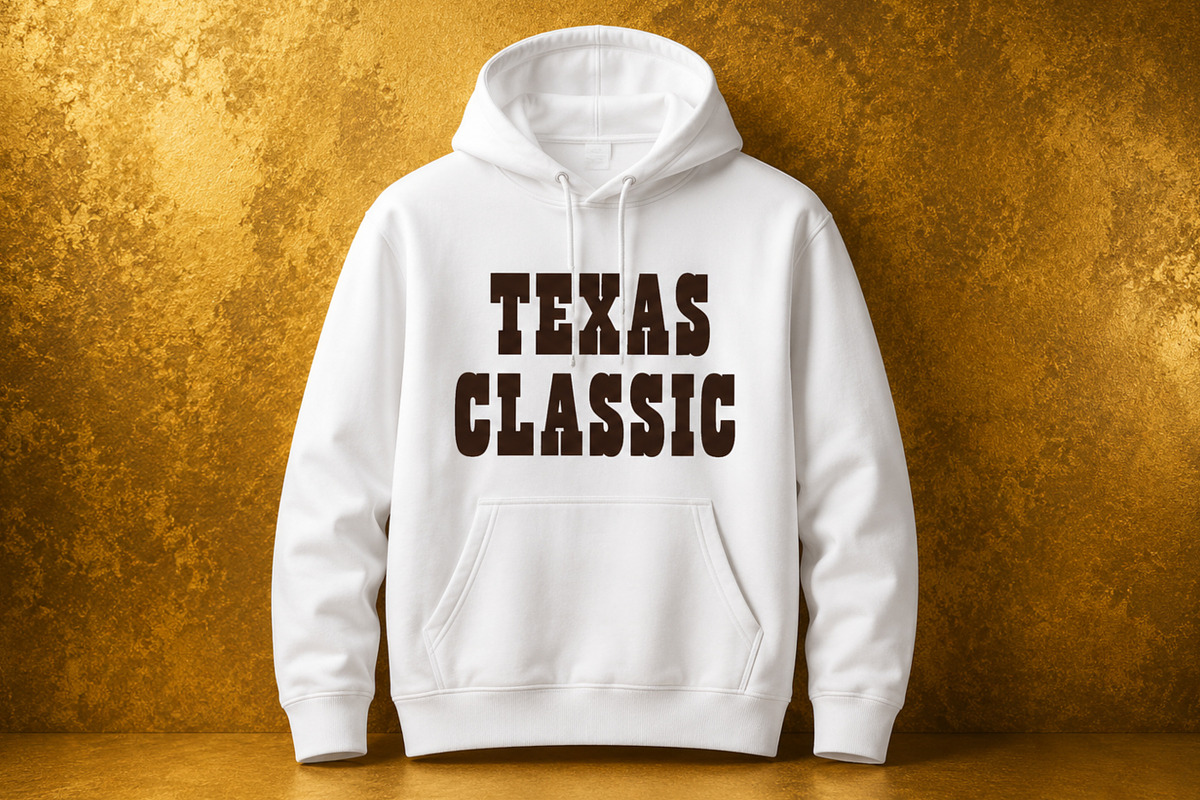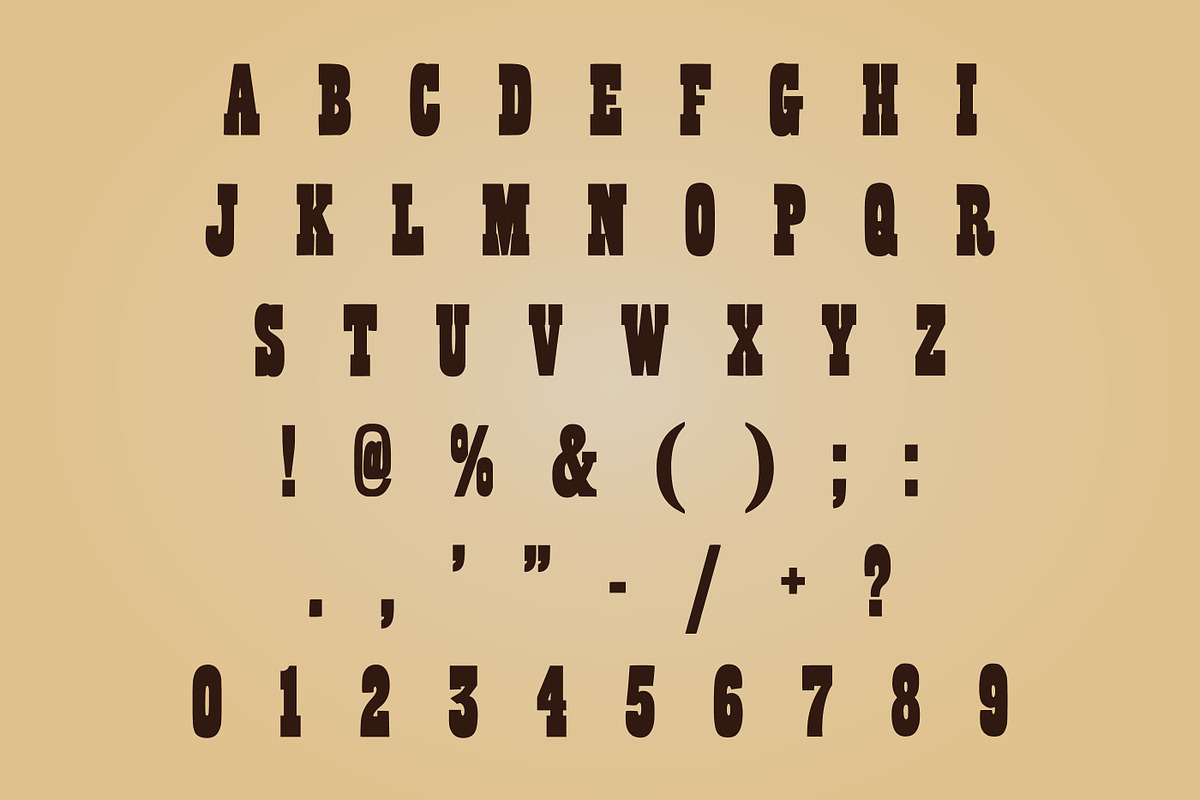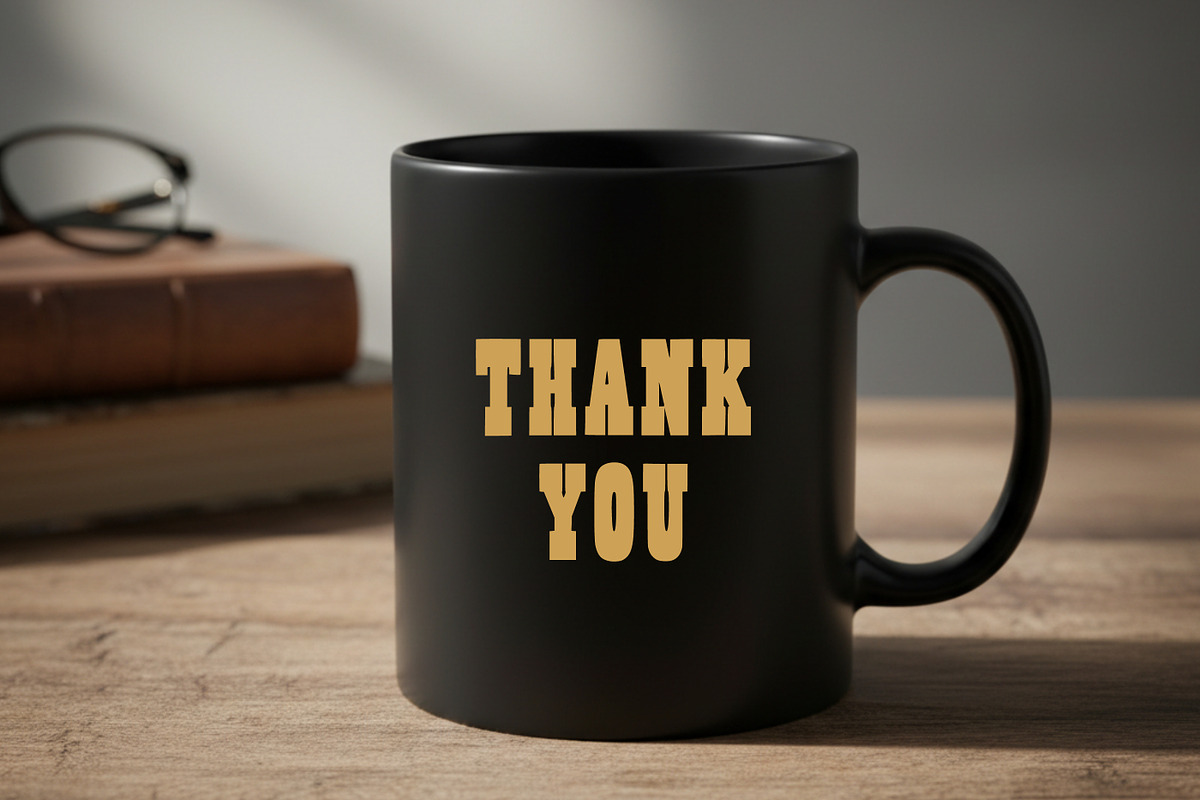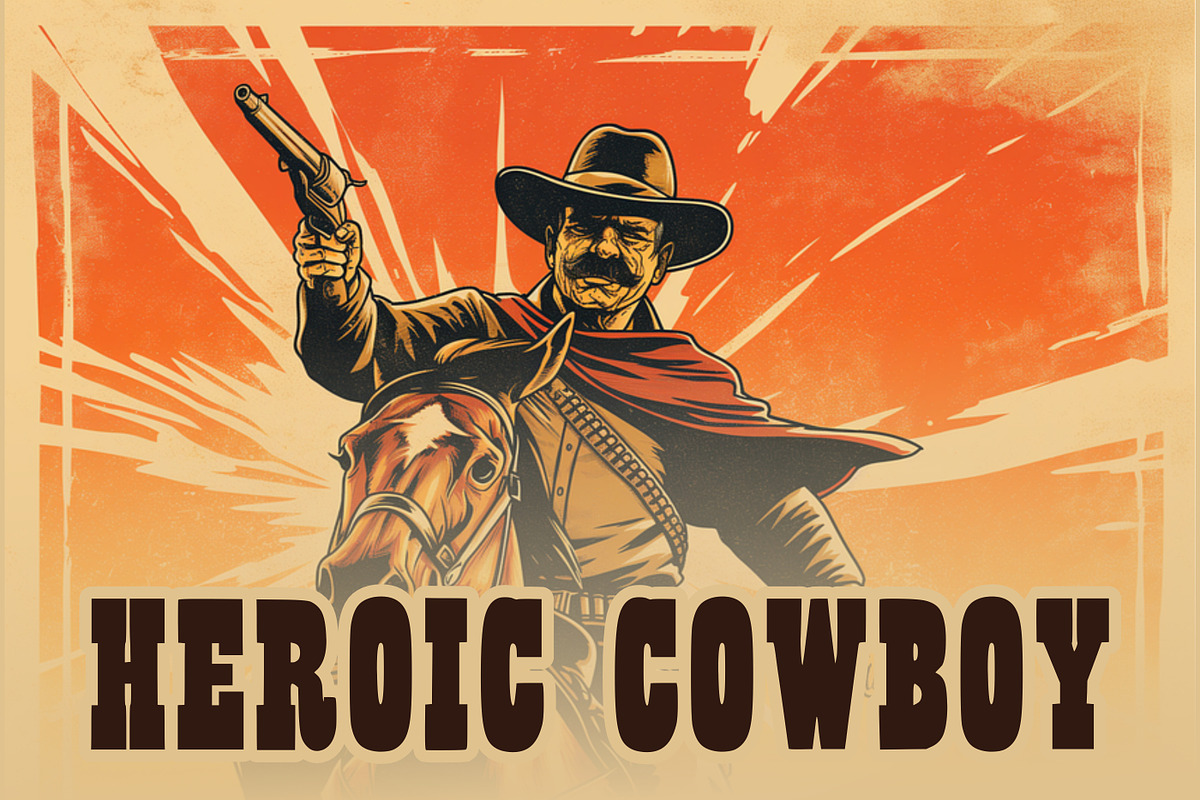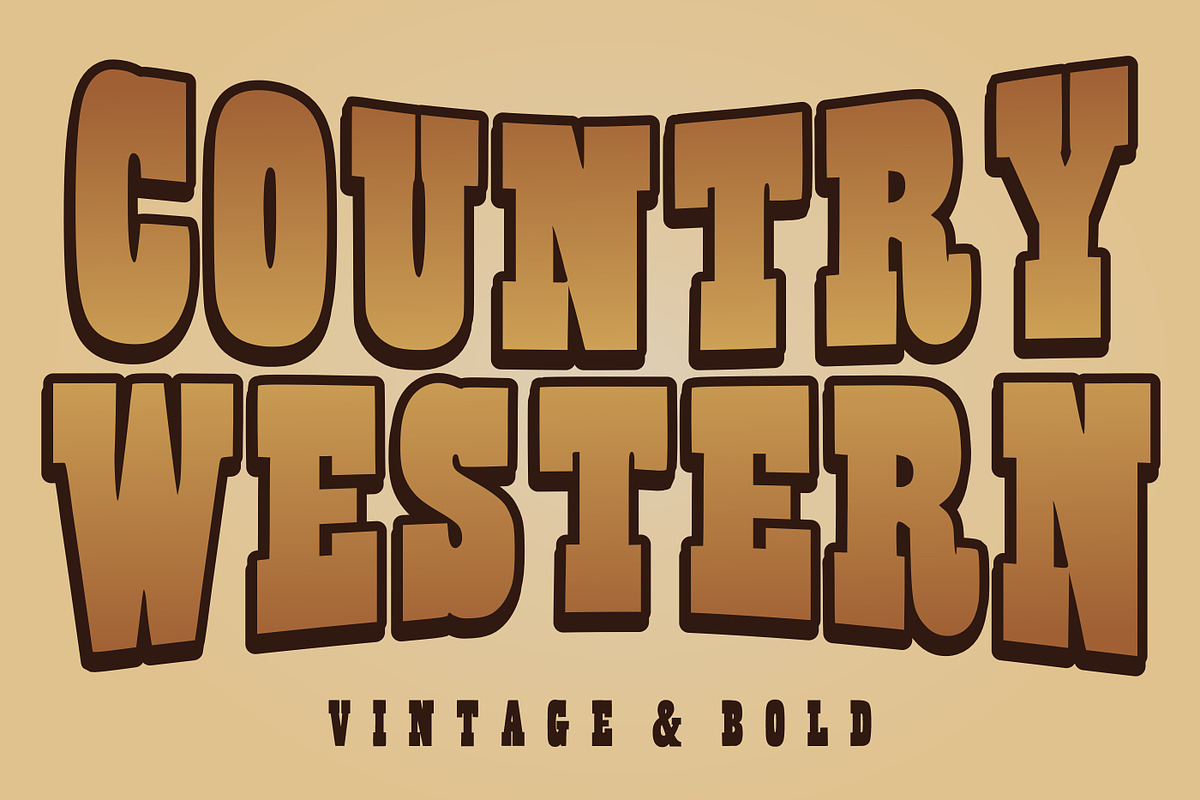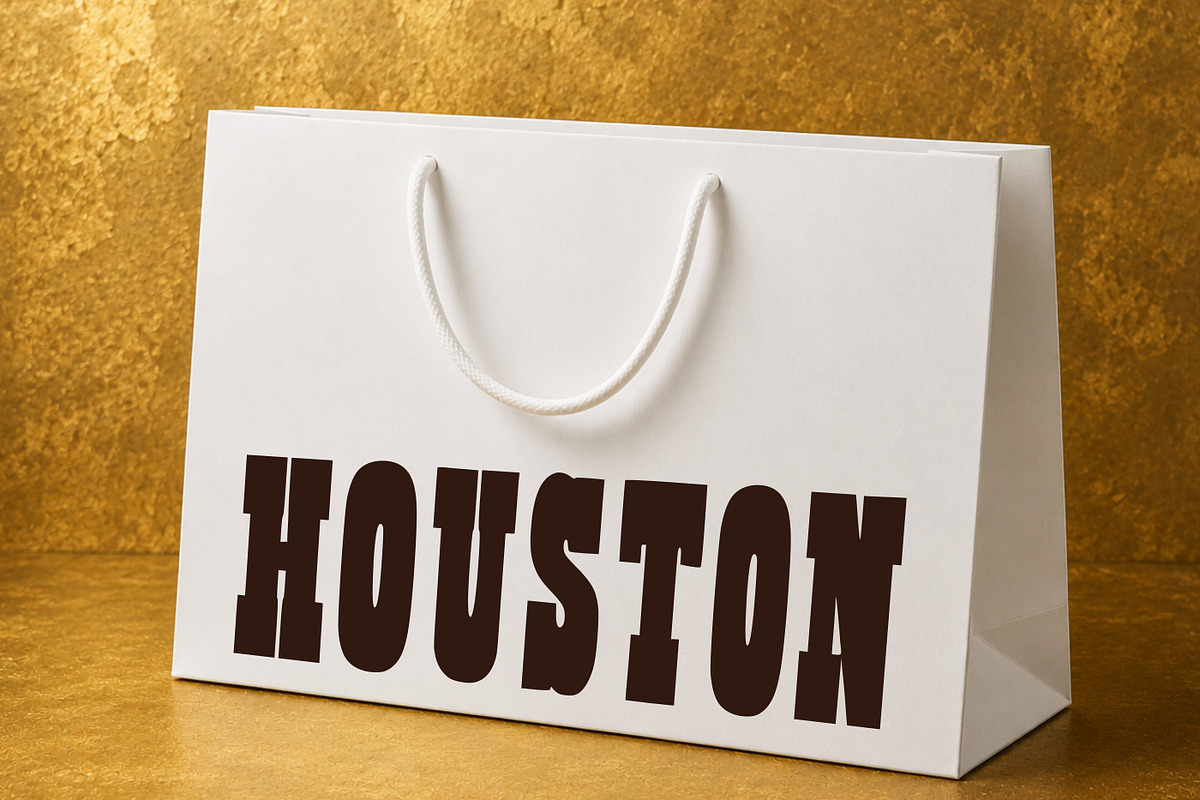
Country Western
Country Western is a powerful vintage display font inspired by classic western posters, old saloon signage, and retro typography styles. Designed with bold strokes and thick outlines, this font delivers a strong visual impact while maintaining a warm, nostalgic feel.
Its rugged yet clean structure makes it ideal for branding, logos, apparel designs, posters, packaging, and more. Whether you’re creating a cowboy-themed project, retro branding, or bold headline typography, Country Western brings authentic western vibes to your work.